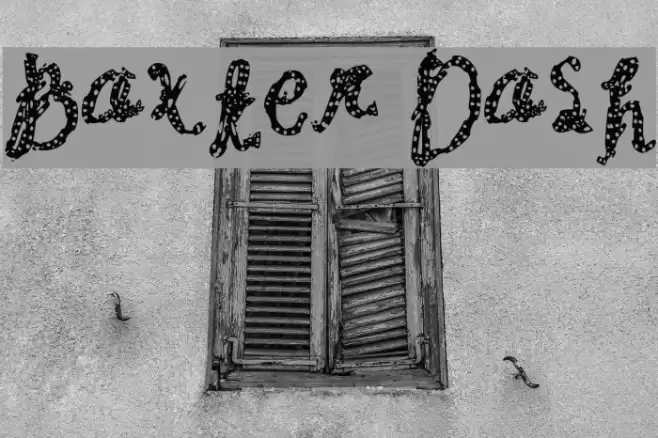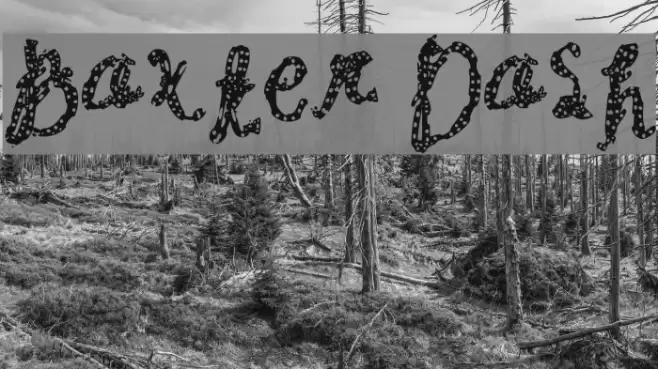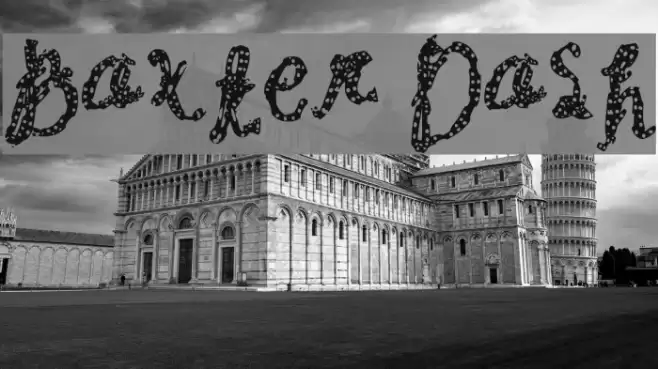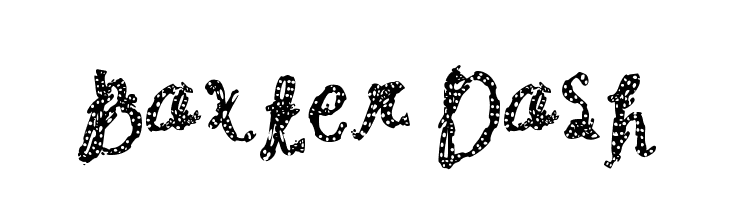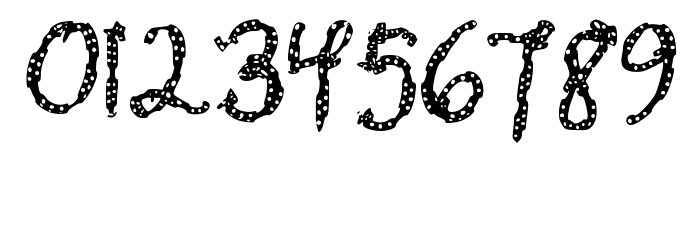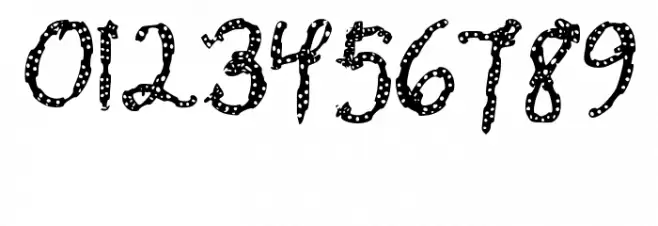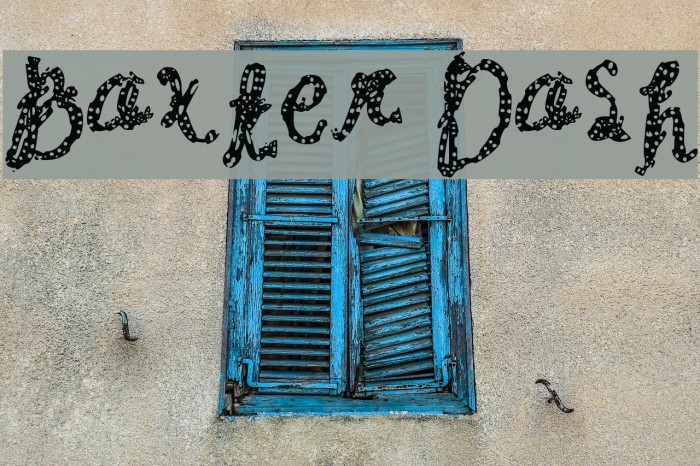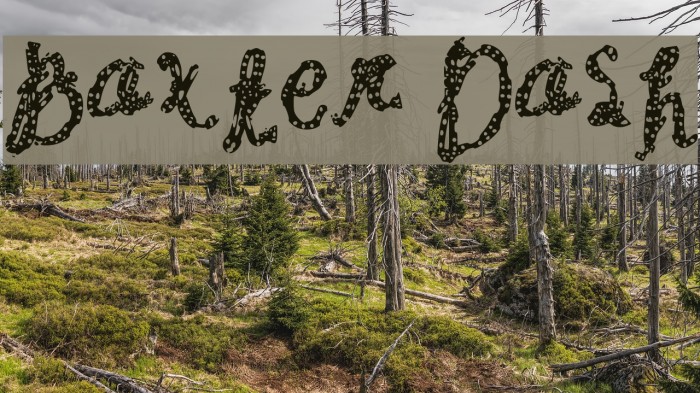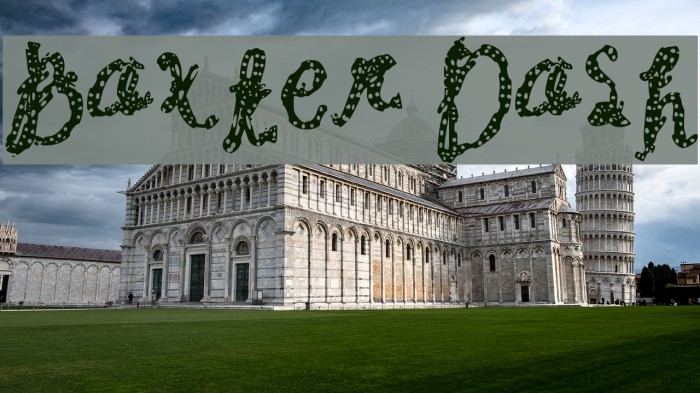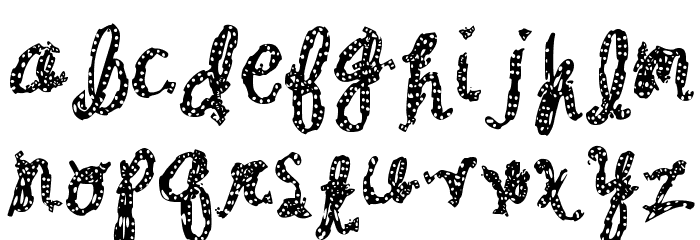
Baxter Dash Font
Baxter Dash Description
This font features a playful and whimsical design, characterized by its dotted pattern that runs throughout each character. The letters are crafted with a hand-drawn aesthetic, giving them a unique and artistic flair. The uppercase and lowercase letters maintain a consistent style, with rounded edges and a slightly irregular form that adds to the charm. Numbers and special characters follow the same dotted theme, ensuring a cohesive look across all elements. This font's distinctive appearance makes it ideal for creative projects that require a touch of fun and individuality.
A playful, dotted font with a hand-drawn, whimsical style from Uncategorized fonts.
- Proposed Projects: Ideal for children's books, playful branding, greeting cards, and creative posters.
- Overall Style: Whimsical, Artistic
- Use Case: Logos, Posters, Creative projects